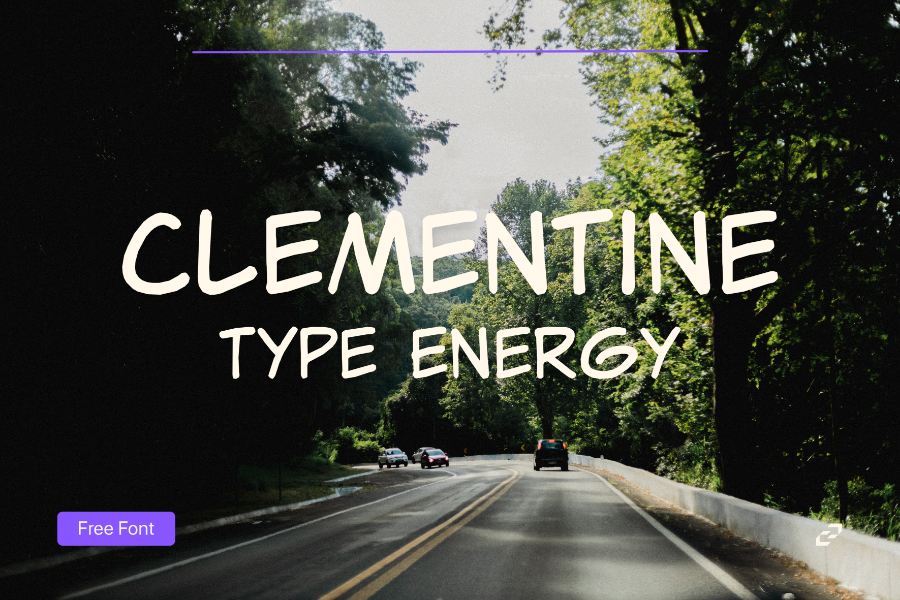
Clementine - Playful Handwritten Script Font for Invitations and Branding
A friendly, casual handwritten style that brings warmth and personality to invitations and brand assets.
Style: Hand-Lettered Script
Weights/Styles: Regular (Single Weight)
Best For: Wellness brands, lifestyle content, packaging, social media posts, event invites.
Key Features:
- Handcrafted script personality
- Playful yet elegant flow
- Works beautifully in both print and web projects